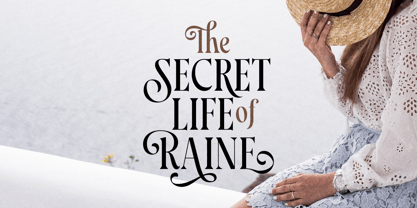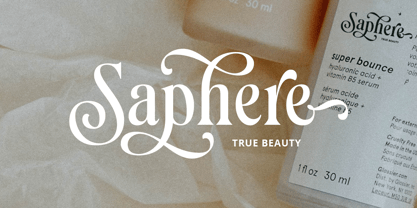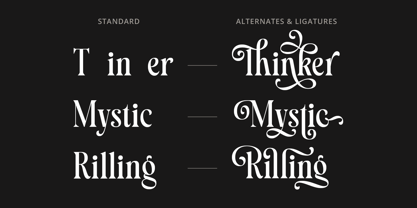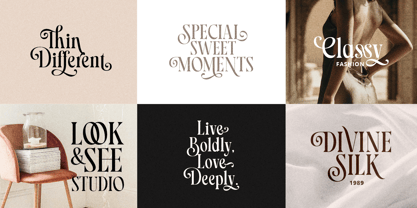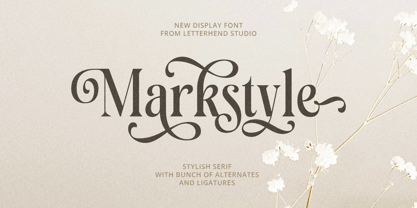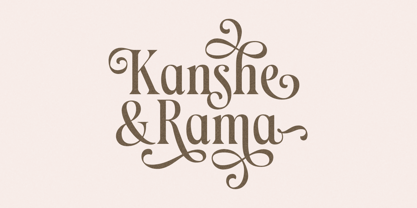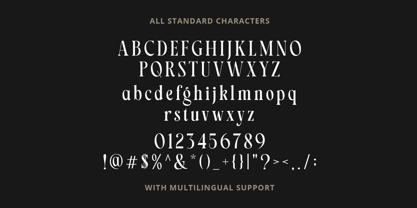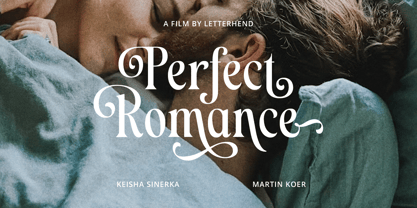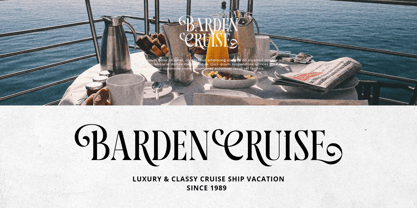
Markstyle
by Letterhend
The Markstyle Font Family was designed by Hendry Juanda and published by Letterhend. Markstyle contains 2 styles and family package options. More about this family
Markstyle is a stylish serif font with elegant curves, decorative swashes, and refined ligatures. Perfect for branding, packaging, wedding invitations, and luxury designs, it adds a sophisticated touch to any project. With plenty of alternates and ligatures, you can create unique and stunning typography effortlessly. Features : Uppercase & lowercase Numbers and punctuation Alternates & Ligatures Multilingual Support PUA encoded